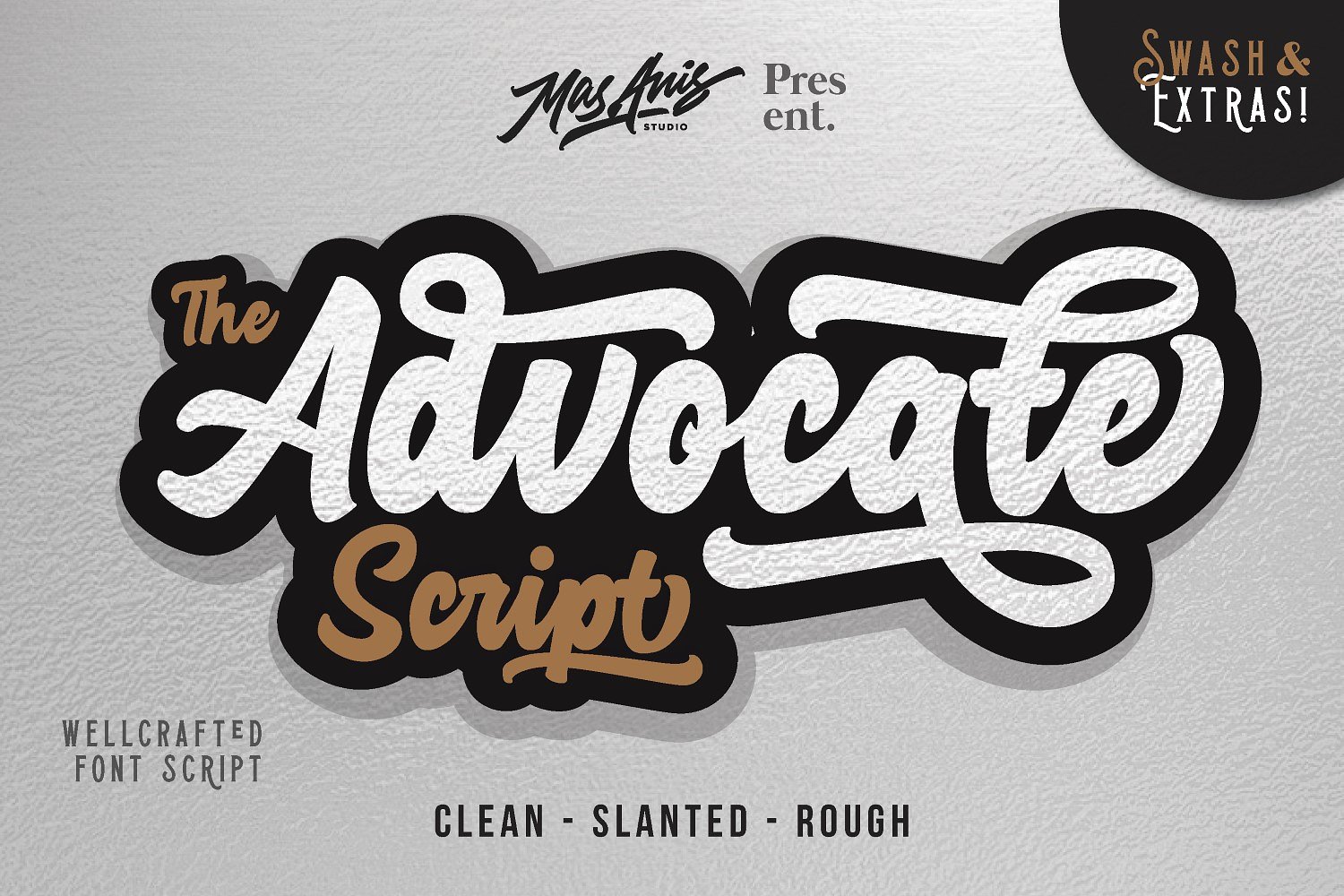
Advocate Script Font
The Advocate Script is brand new simple bold script we made for you, with classic neat handlettering style, attractive swashes and alternates to make your designs work more easier. Ideal for logos, handwritten quotes, product packaging, header, poster, merchandise, social media & greeting cards.